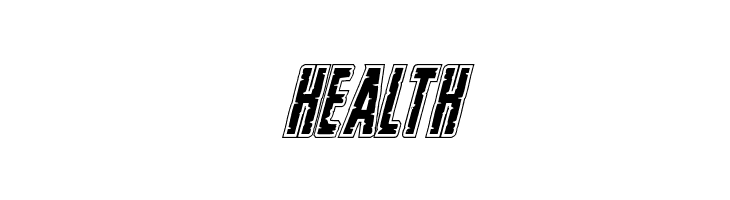
A bold, italic font with a textured, distressed look and strong visual impact.
A bold, condensed font with a distressed, textured appearance.
A bold, condensed, and italicized font with a distressed, energetic style.
A bold, distressed font with a rugged, grunge-like appearance.
A bold, expanded, and italic font with a dynamic and edgy style.
A bold, distressed font with a rugged, grunge-like appearance and expanded width.
A bold, italic, extra expanded font with a jagged texture.
A bold, italic font with a rough, textured style and dynamic energy.
Bold, distressed font with a dynamic, slanted style.
A bold, distressed font with a slanted, dynamic style.